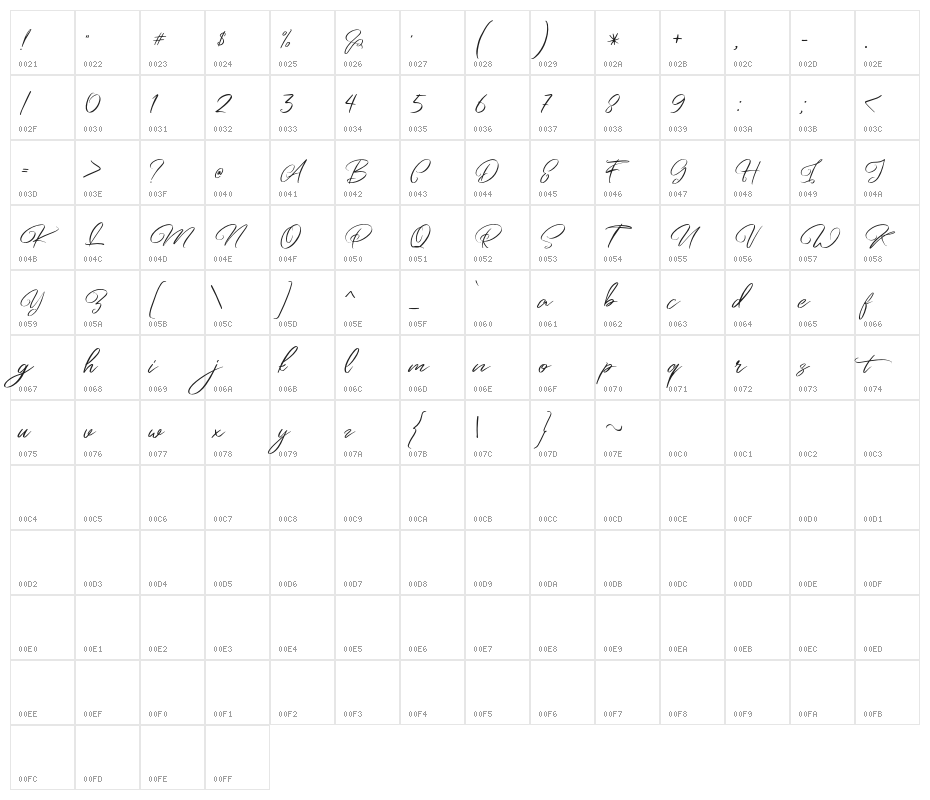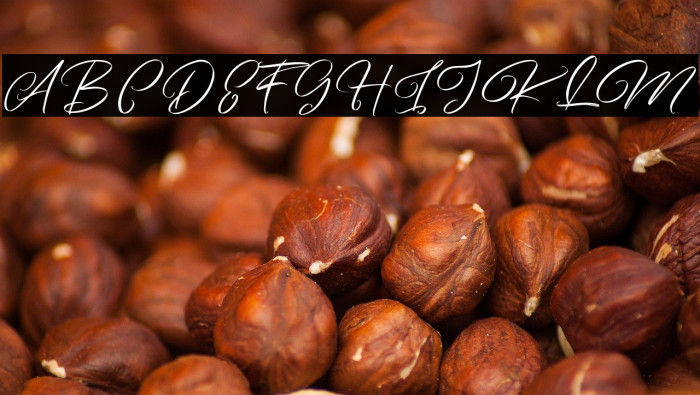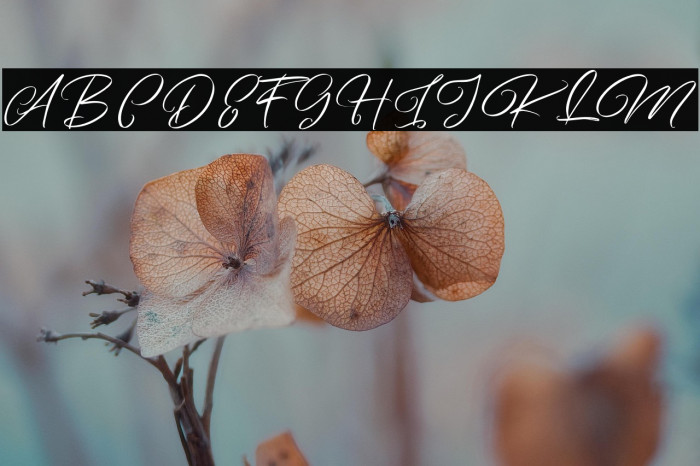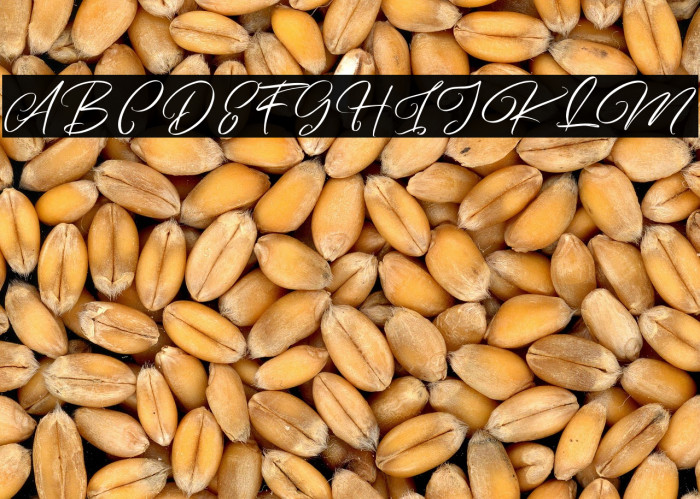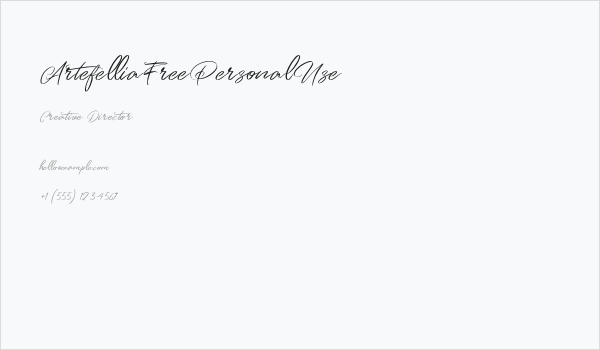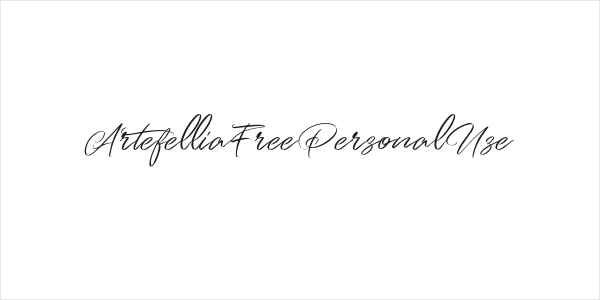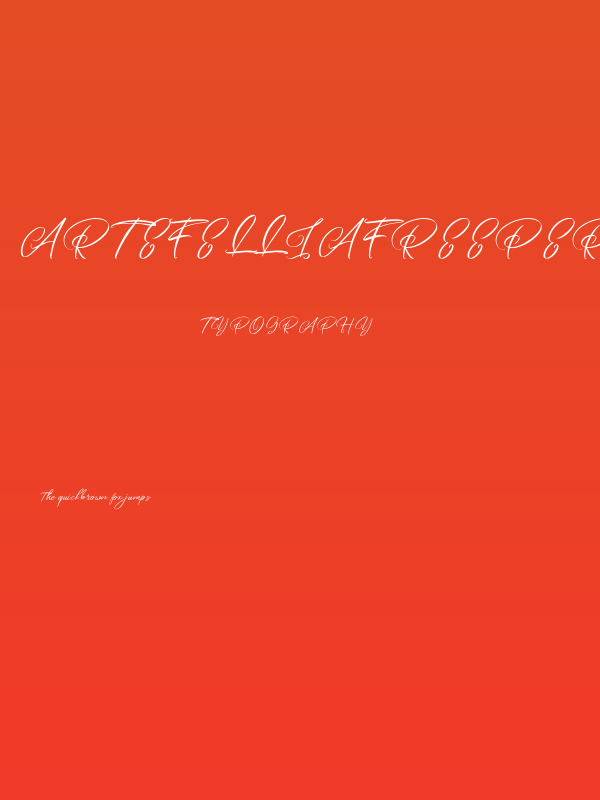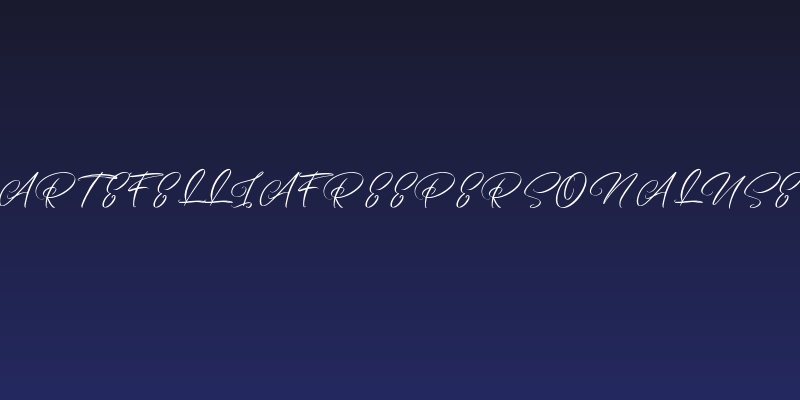
ArtefelliaFreePersonalUse Font
ArtefelliaFreePersonalUse Description
This elegant script font features a flowing, cursive style with a sophisticated and artistic flair. The uppercase letters are characterized by their intricate loops and swirls, giving them a decorative appearance. The lowercase letters maintain a smooth and connected flow, enhancing readability while retaining an artistic touch. The numerals are consistent with the overall style, featuring slight curves and a balanced design. Special characters are thoughtfully integrated, maintaining the font's cohesive aesthetic. This font exudes a sense of elegance and creativity, making it suitable for projects that require a personal and artistic touch.
| Proposed Projects | Ideal for wedding invitations, greeting cards, branding, and artistic projects. |